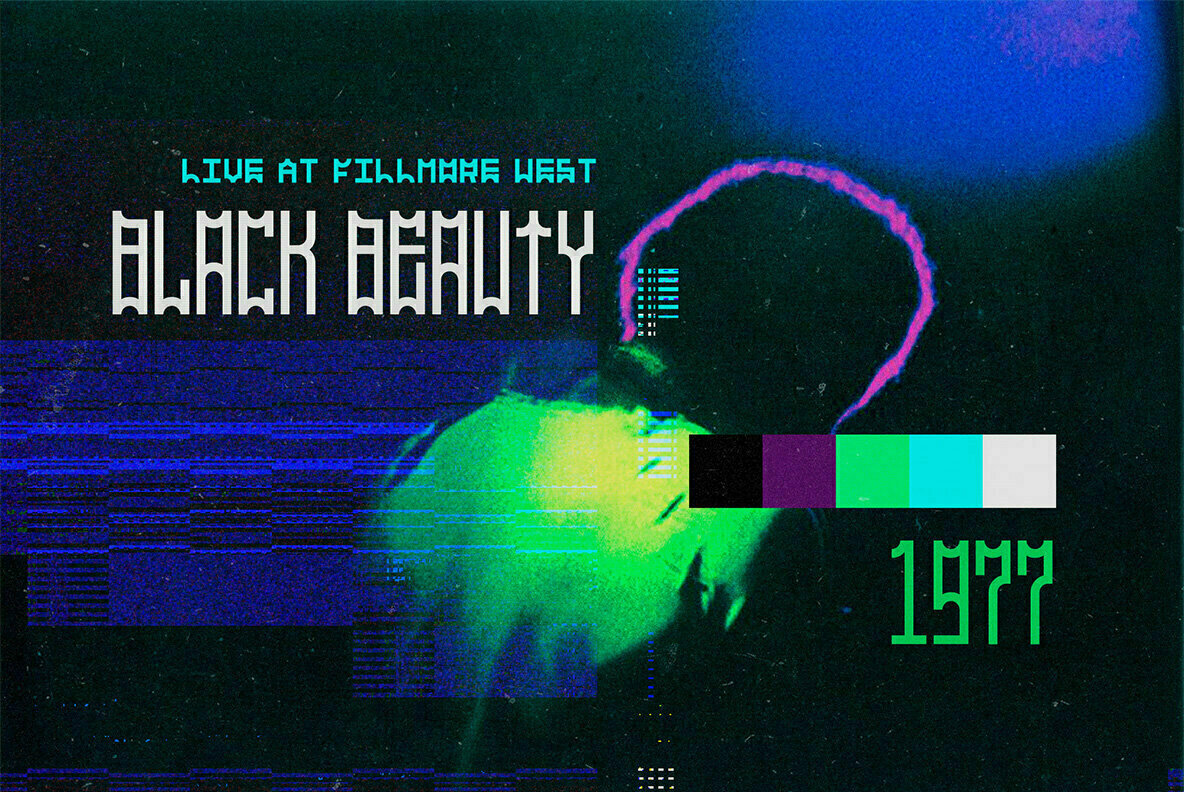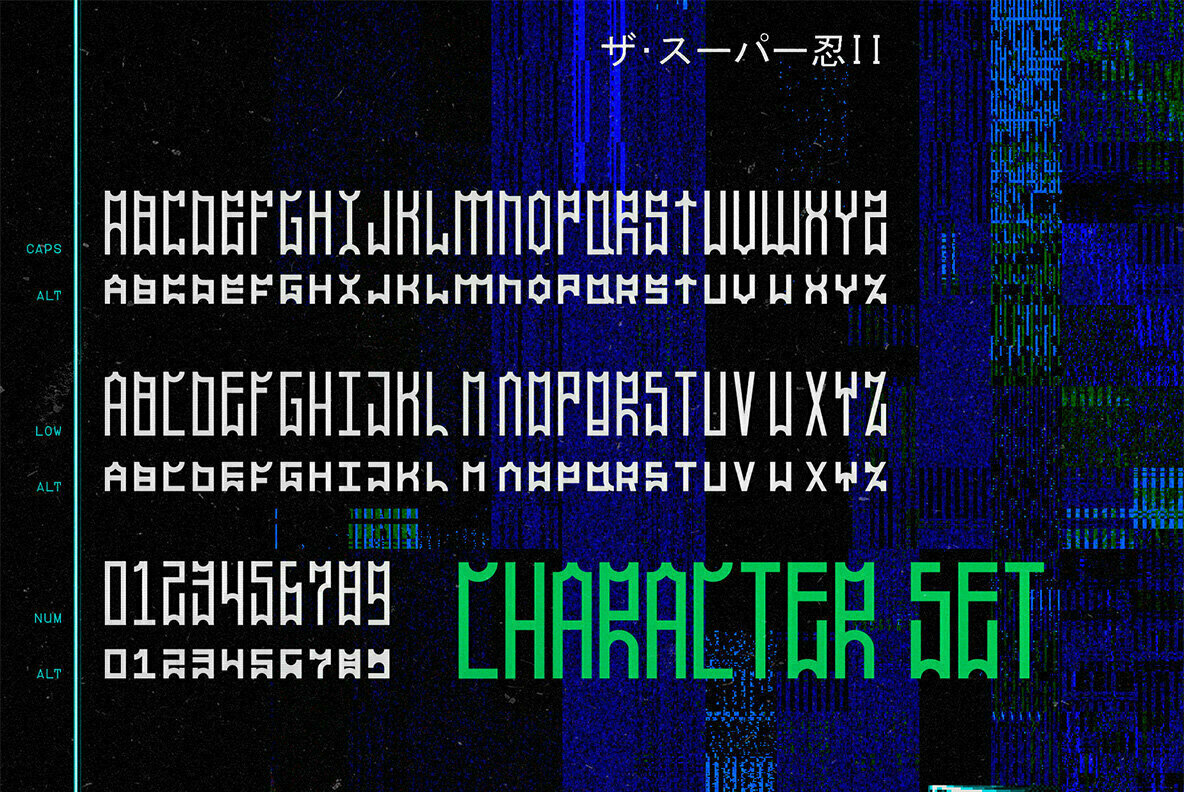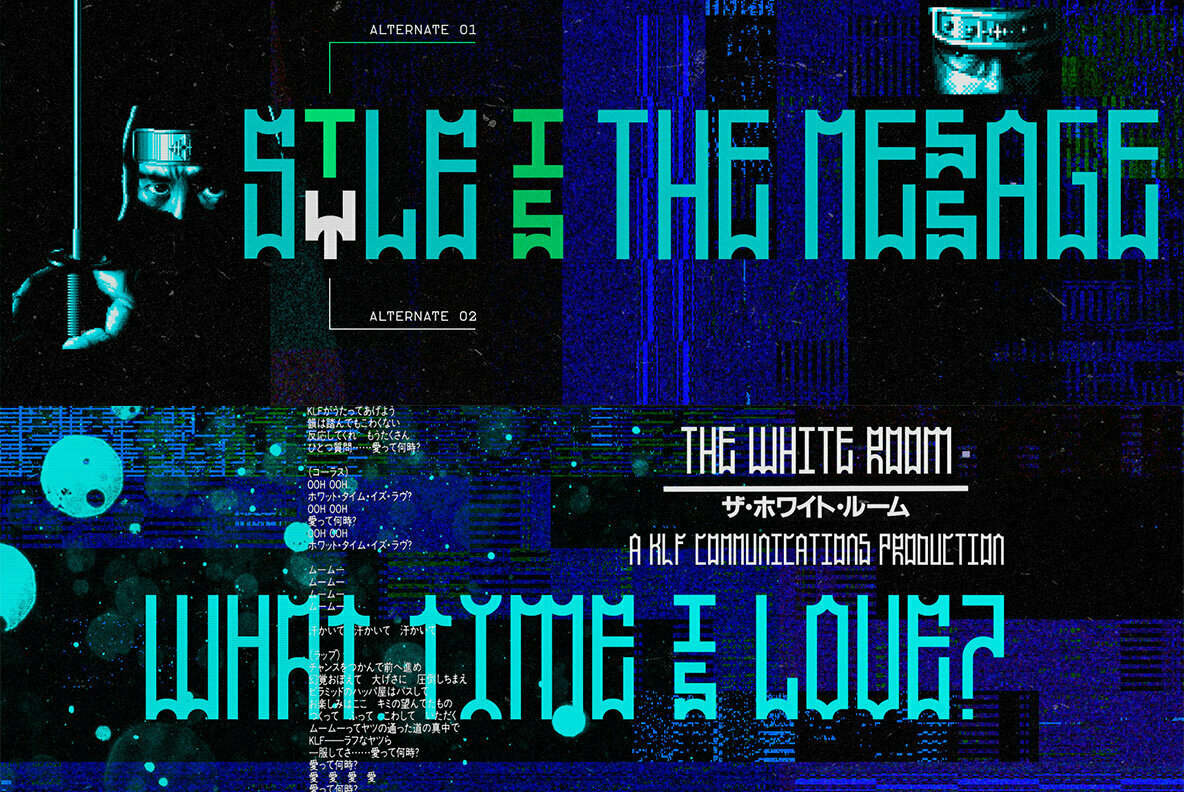
SP011 Pro Font
SP 011 Pro is the new version of an old project - a display font inspired by the São Paulo pixo graffiti writing and Eastern European characters, with a geometric and modular construction. Includes two sets of alternative characters, diacritics and special characters.